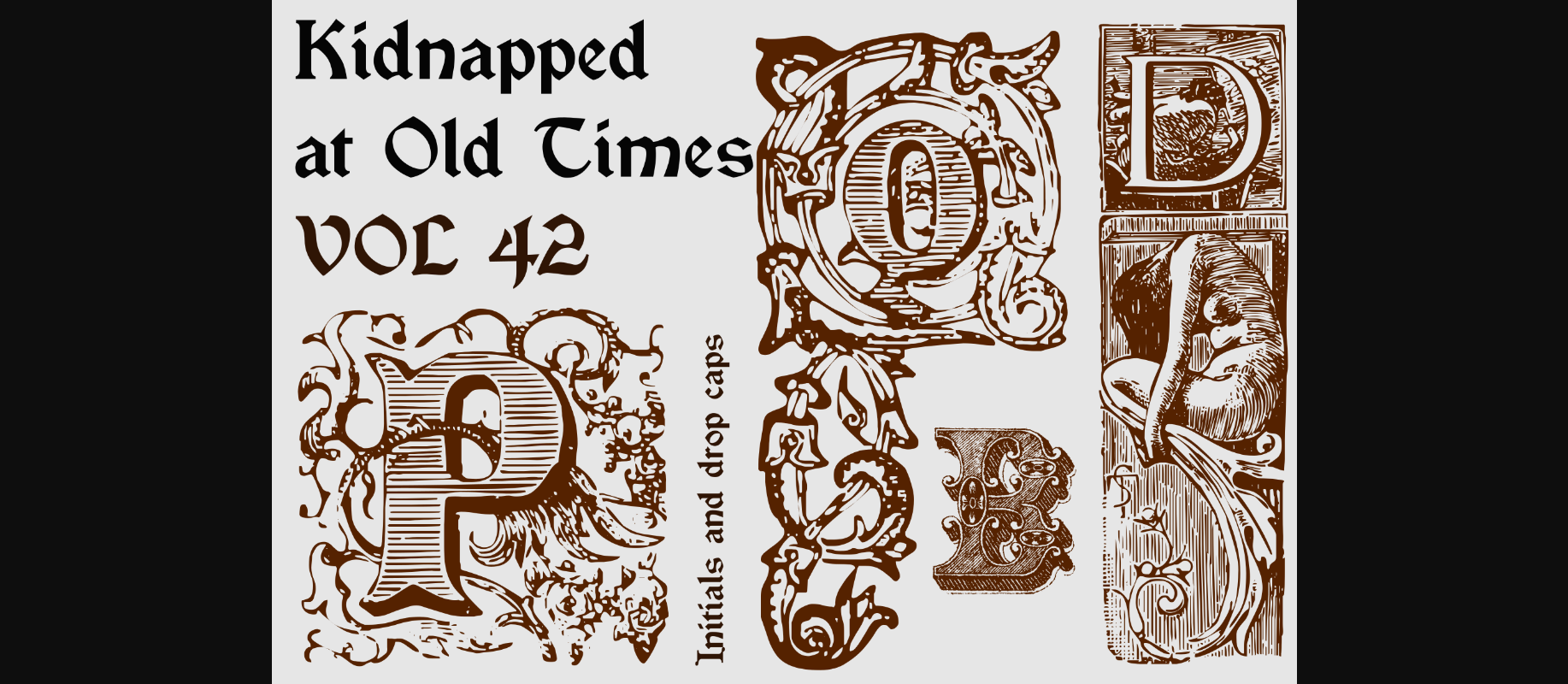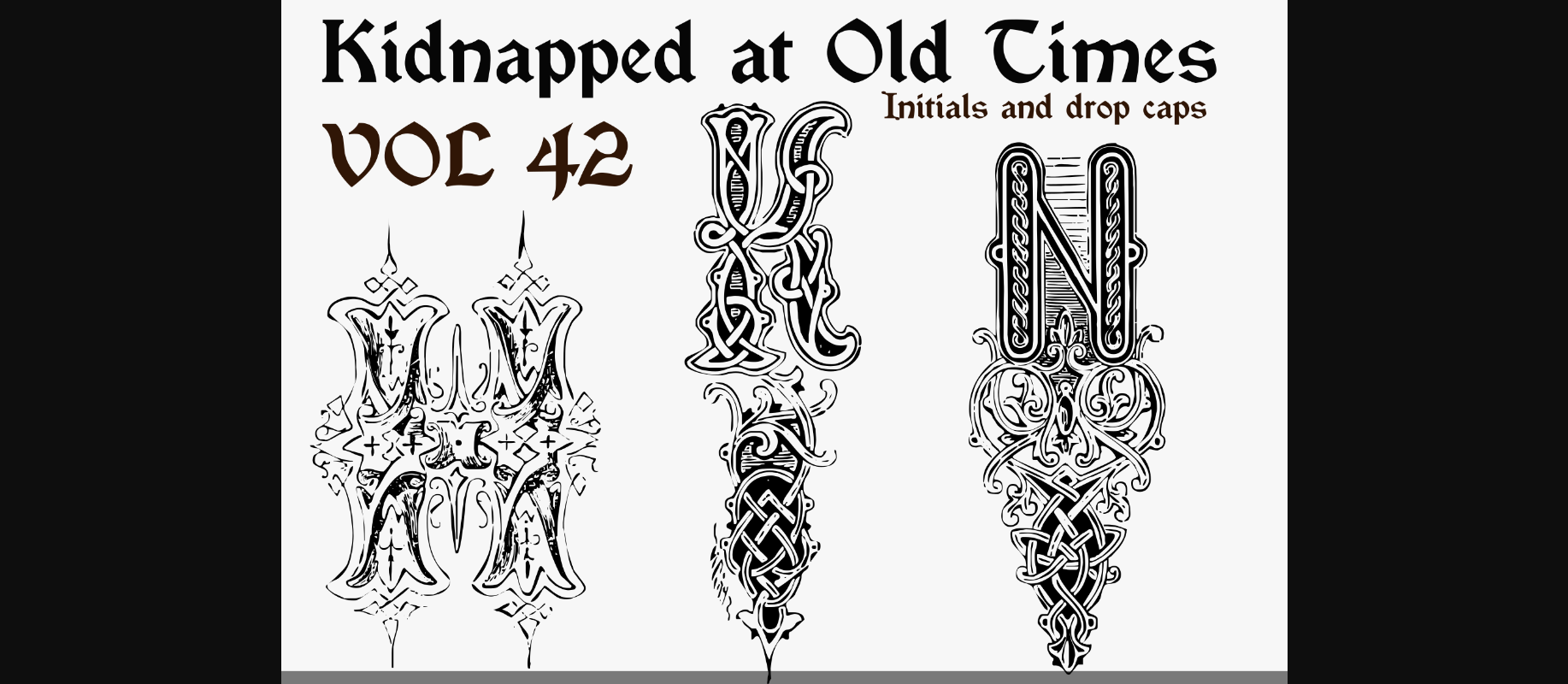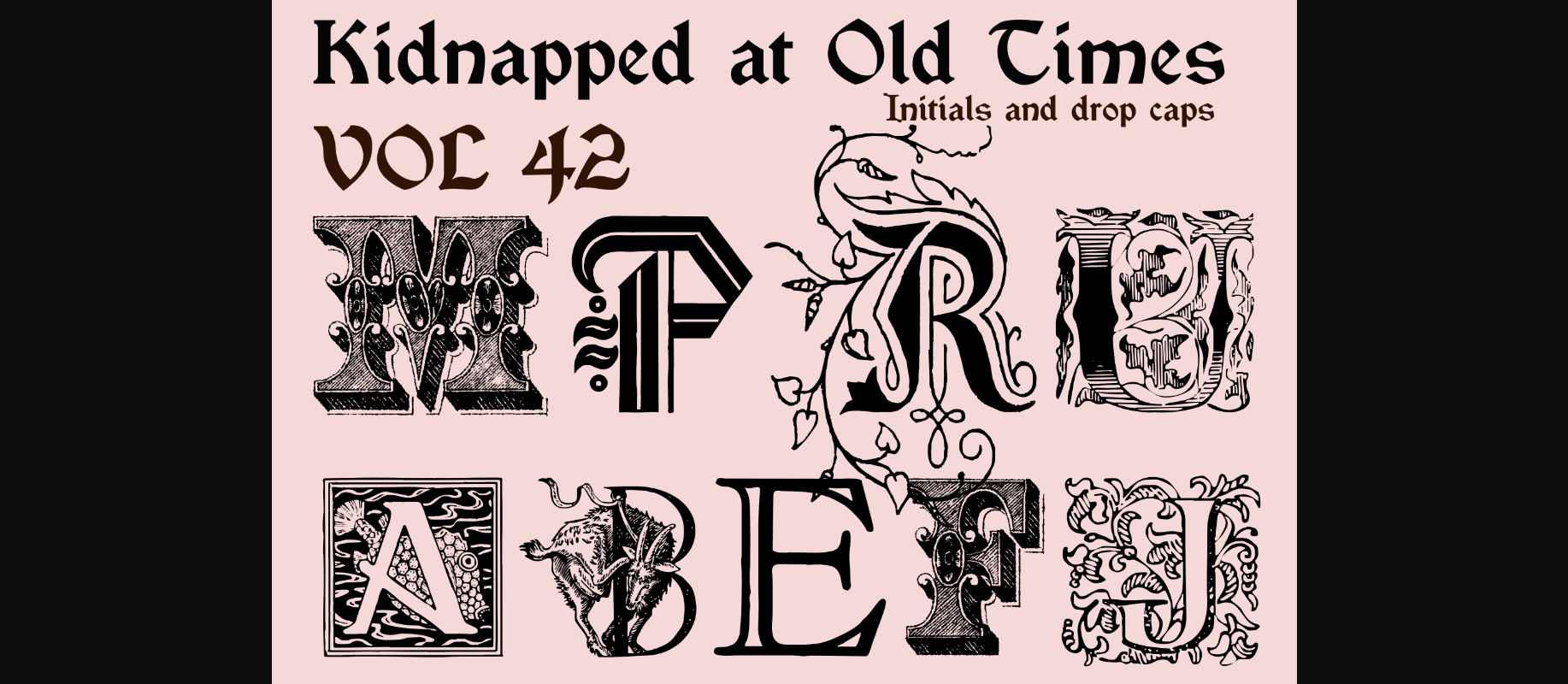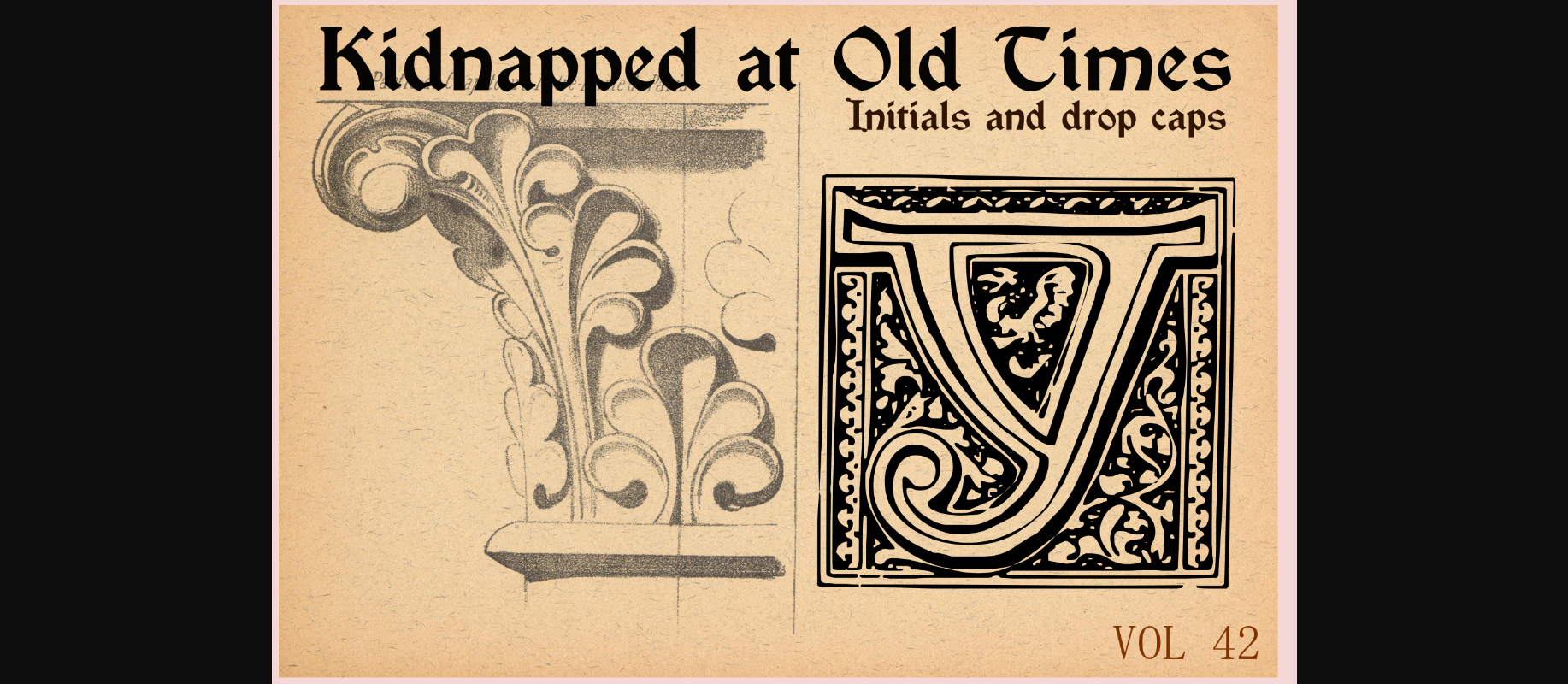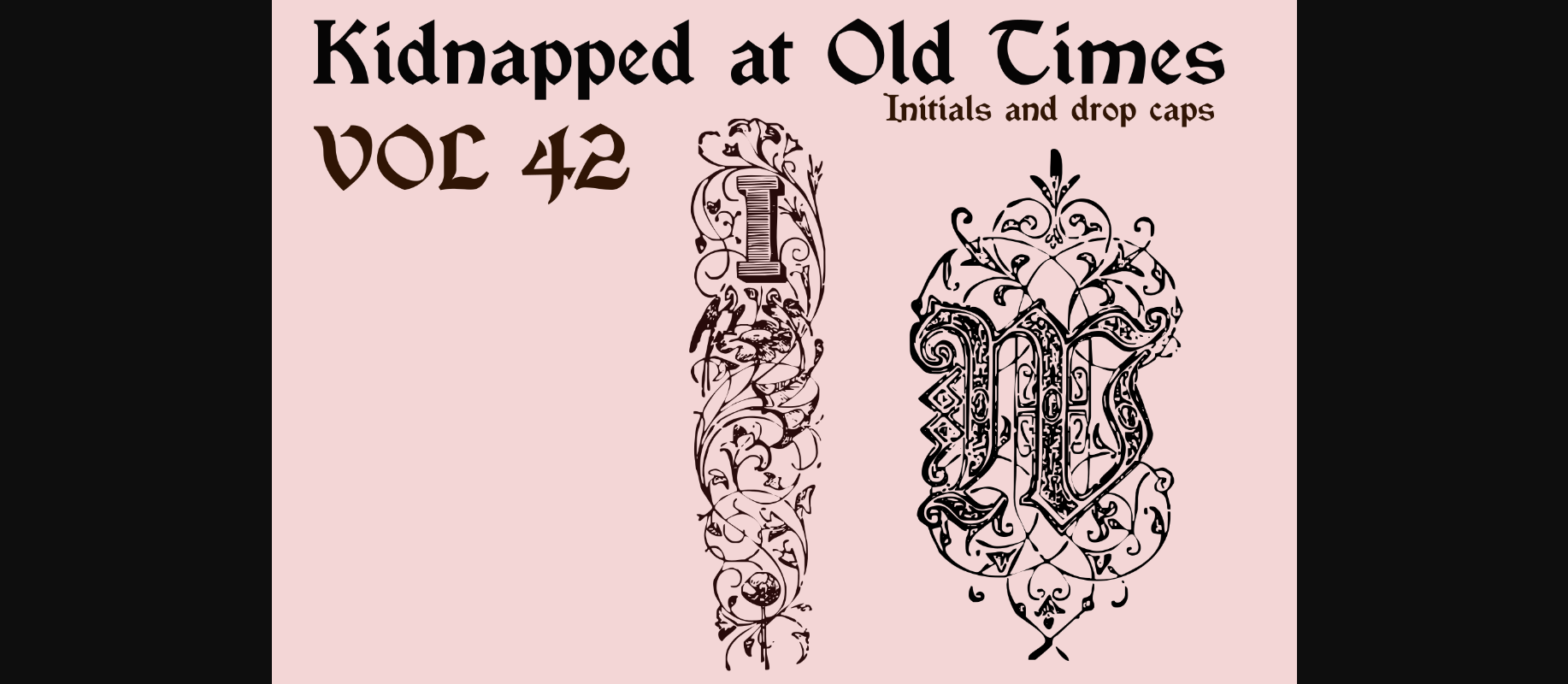
About Kidnapped at Old Times Font
Kidnapped at Old Times 42 is a collection of some of the most decorative caps we have ever carried. Decorative caps can capture the attention of anyone when used well. These caps are remarkably interesting and very detailed